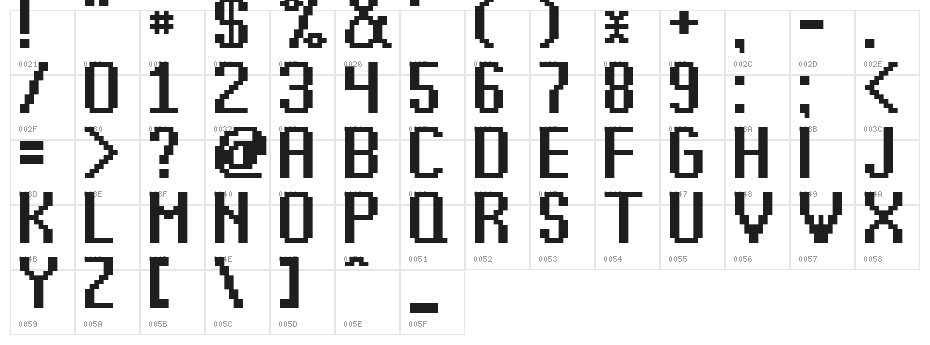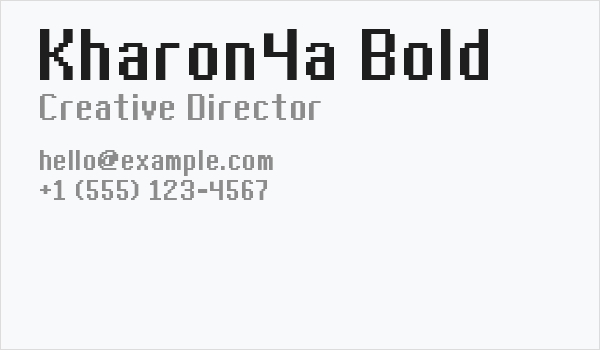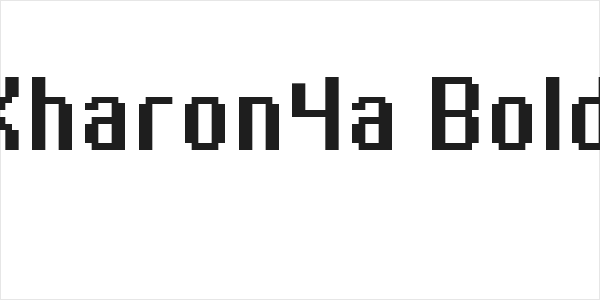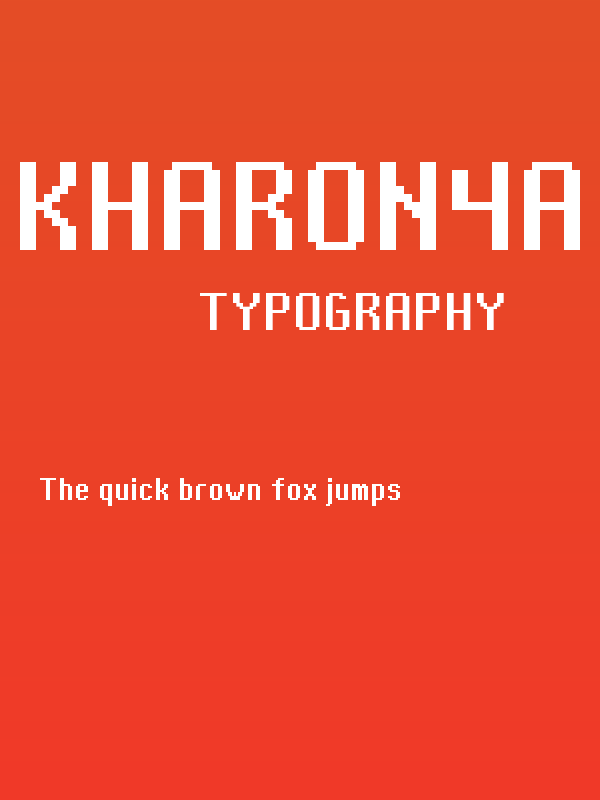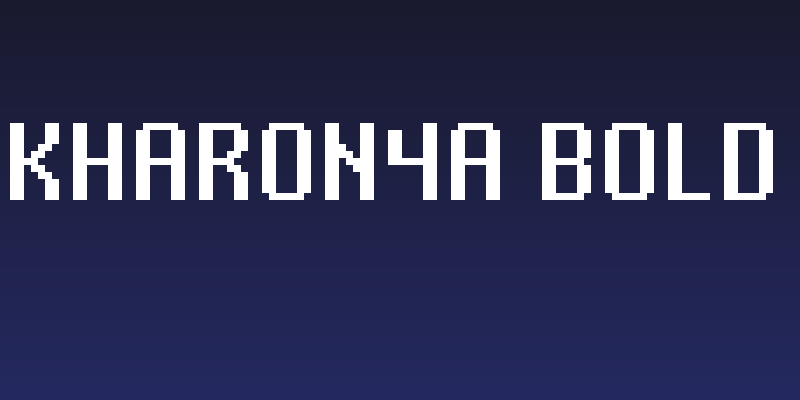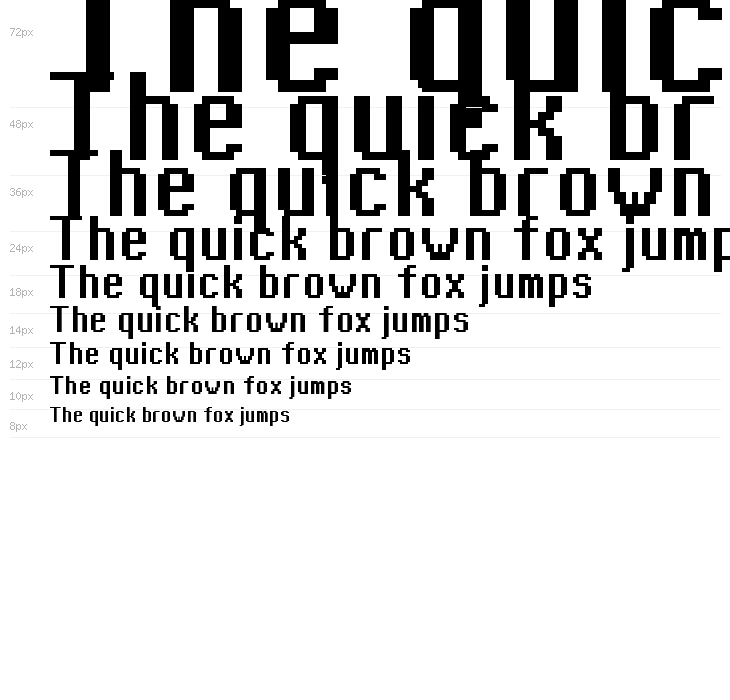
Kharon4a Bold Font
Kharon4a Bold Description
This font exhibits a bold, pixelated style reminiscent of early digital and arcade typography. Each character is constructed with a blocky, grid-like appearance, emphasizing a retro, digital aesthetic. The uppercase and lowercase letters maintain a consistent height, contributing to a uniform and cohesive look. The numerals and special characters follow the same pixelated design, ensuring a seamless integration across all text elements. This font's distinct style makes it ideal for projects that aim to evoke nostalgia or a vintage digital feel.
Overall StyleVintage
Use CaseHeadlines, Logos, Digital Art
Proposed ProjectsPerfect for video game graphics, retro-themed posters, digital art, and any project seeking a vintage digital look.